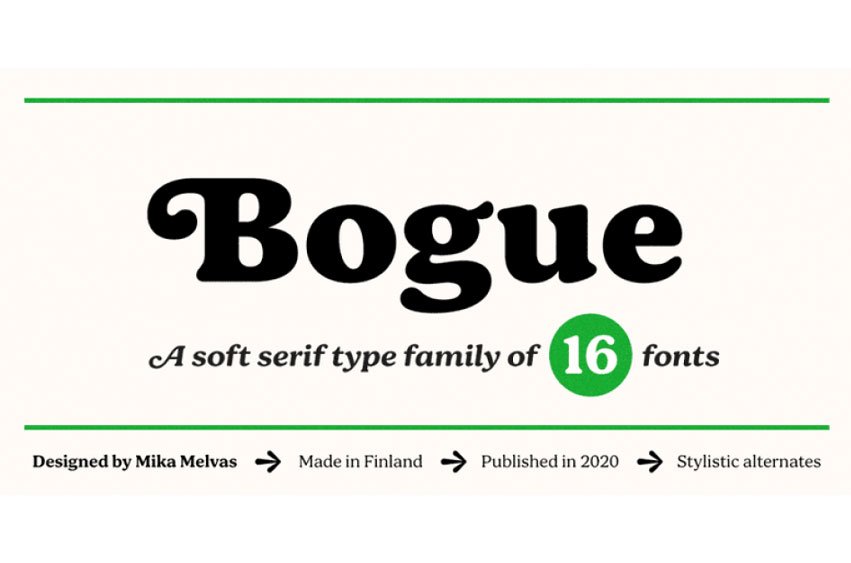
Bogue Font
Bogue Font is a soft serif font family with eight weights and its associated italics that is designed for easy reading with a hint of retro charm. Bogue features various stylistic variations making it extremely flexible for uses in logo design, editorial design, branding packaging design web design or any other project that demands serif fonts.
Use this versatile, soft serif font with its relaxed character to craft powerful short phrases and headlines, or apply it to longer text such as lead paragraphs or body text. If you’re searching for a versatile font with soft serifs that has an approachable tone – look no further!